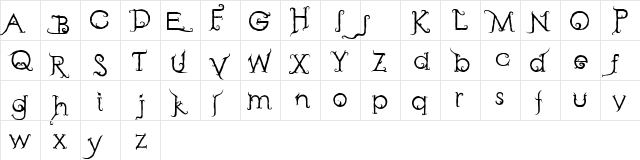
Retak Seribu Regular
| Foundry | cenz qobbal |
| Designer | cenz qobbal |
Design Context for Retak Seribu Typeface
Retak Seribu is a composed and adaptable typeface that performs quietly and consistently across a wide range of design contexts.